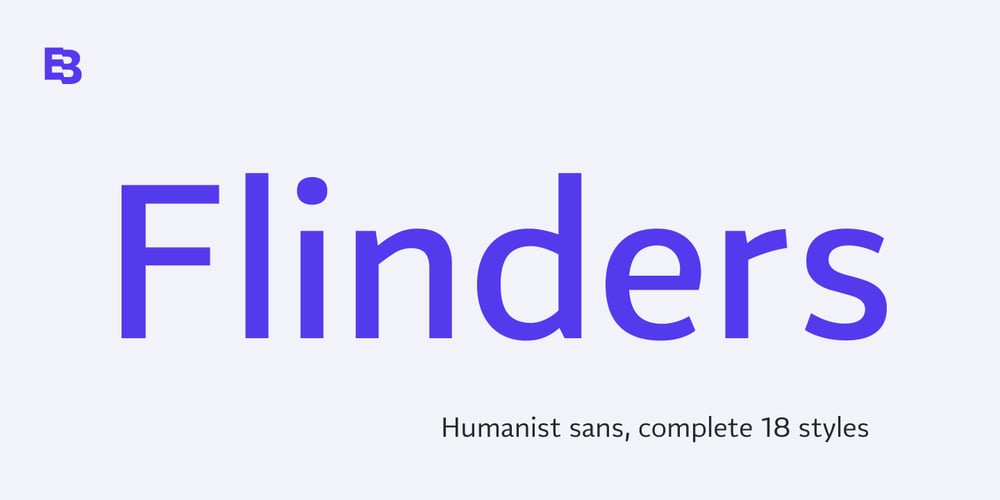
Flinders Font Family was designed by Eko Bimantara and published by Eko Bimantara. Flinders contains 20 styles and family package options. Flinders is a modern humanist sans serif font family designed by Eko Bimantara in 2023. This typeface is intended to be used for various reading purposes and has letterforms optimized for legibility and ease of reading. The styles of Flinders are a sans serif interpretation of classical roman proportions, characterized by a low x-height, subtle calligraphic strokes, angled stroke ends, and open counters and apertures.Flinders is a versatile typeface that is readable in both large and small sizes. Its legibility makes it an excellent choice for body text in books, magazines, and newspapers, while its modern design and open counters make it well-suited for digital screens and web design. Flinders can also be used for branding and identity design, as well as packaging and signage.Overall, Flinders is a contemporary and readable typeface that is suitable for a wide range of design projects. Its humanist characteristics and modern design make it a unique and versatile option for designers looking for a typeface that combines classical proportions with contemporary style.